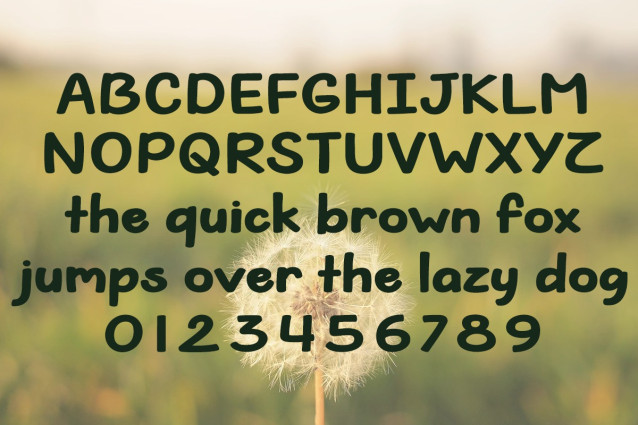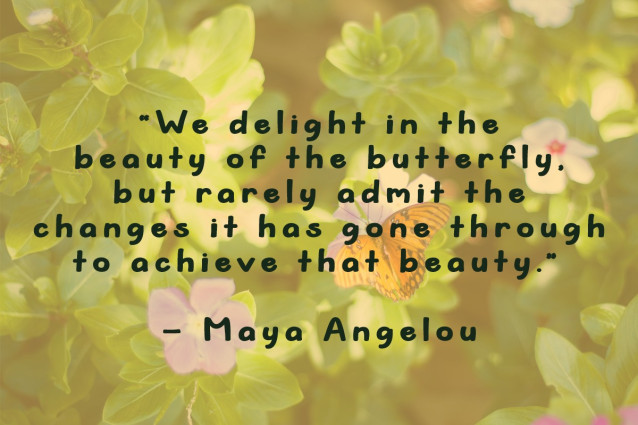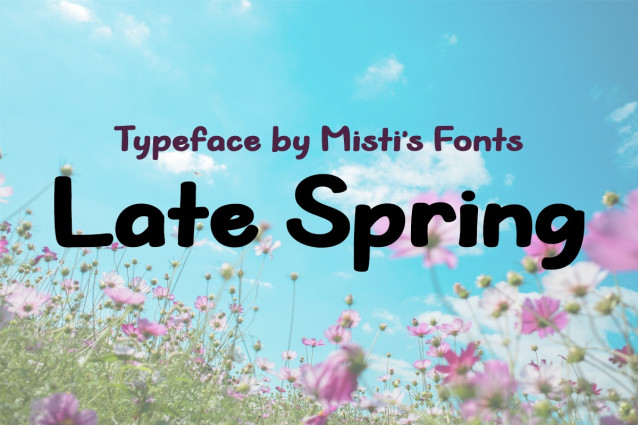
Late Spring Font
Late Spring Font is a bold handwritten typeface full of personality and warmth. With confident strokes and casual charm, it’s perfect for logos, posters, branding, and social media that need a personal, energetic, and eye-catching touch.